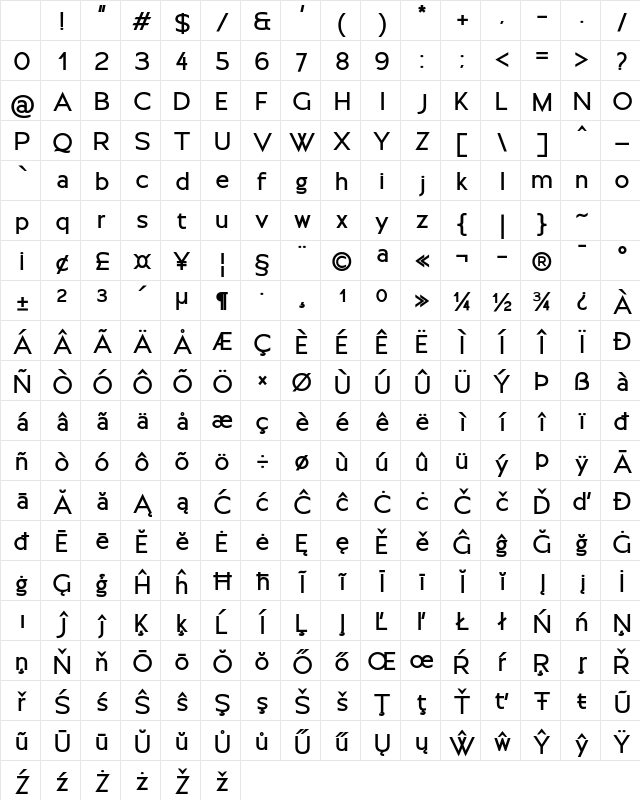
Complete Moirest Bold glyph index. Displaying only characters natively supported by Moirest Bold font.
Moirest is a composed and adaptable typeface that performs quietly and consistently across a wide range of design contexts. Its bold stroke weight gives it real presence on the page.